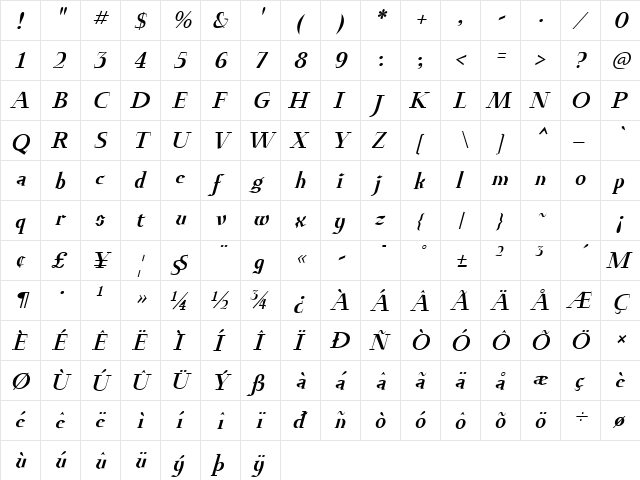
Euroika Bold Italic
Design Context for Euroika Typeface
Euroika offers clean, dependable letterforms without strong stylistic allegiance, making it a practical choice for designers who need flexibility. The slanted form adds forward momentum and visual energy. Its bold stroke weight gives it real presence on the page.
Pro Tip: Use Euroika for emphasis, pull quotes, and subheadings where its slanted energy can add rhythm to the layout.